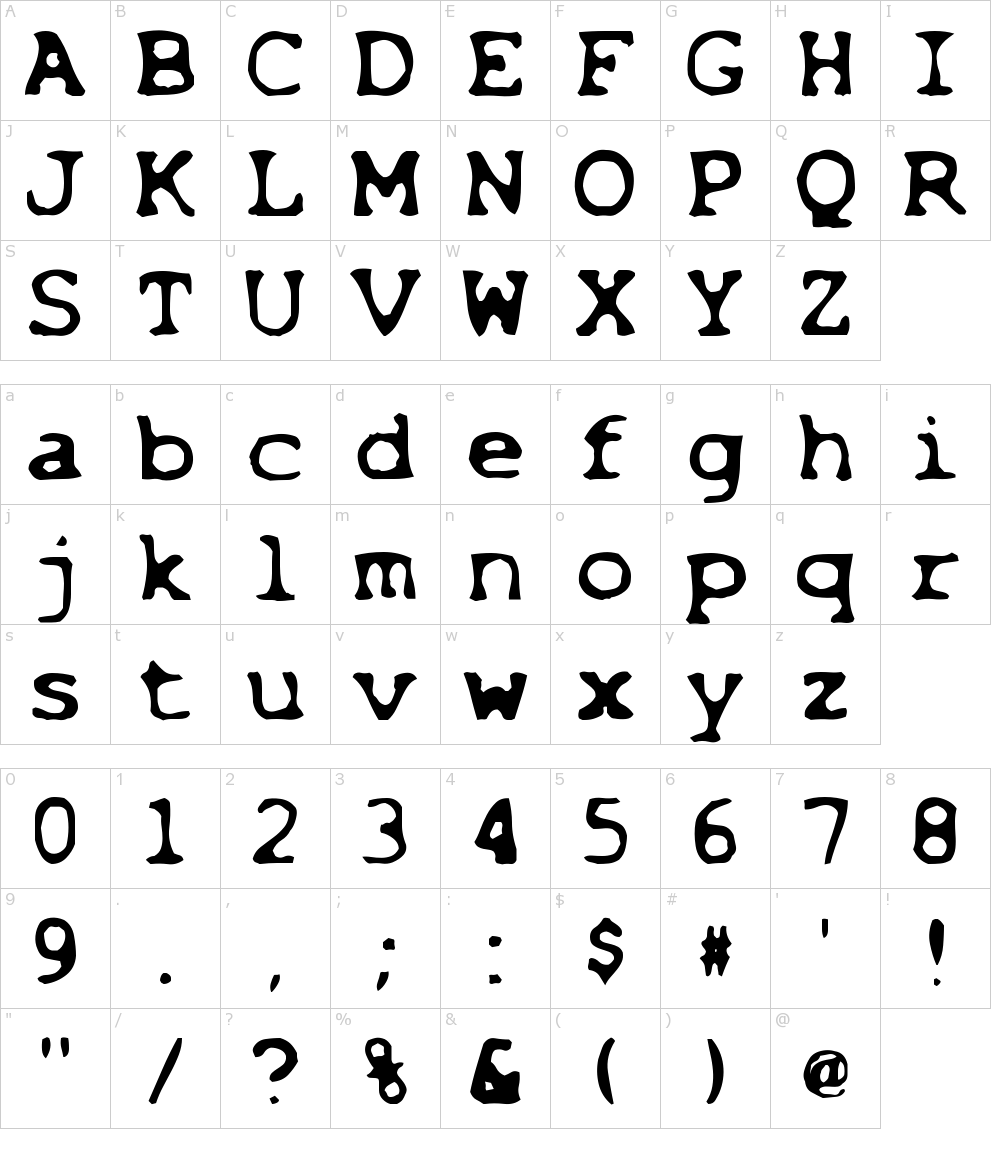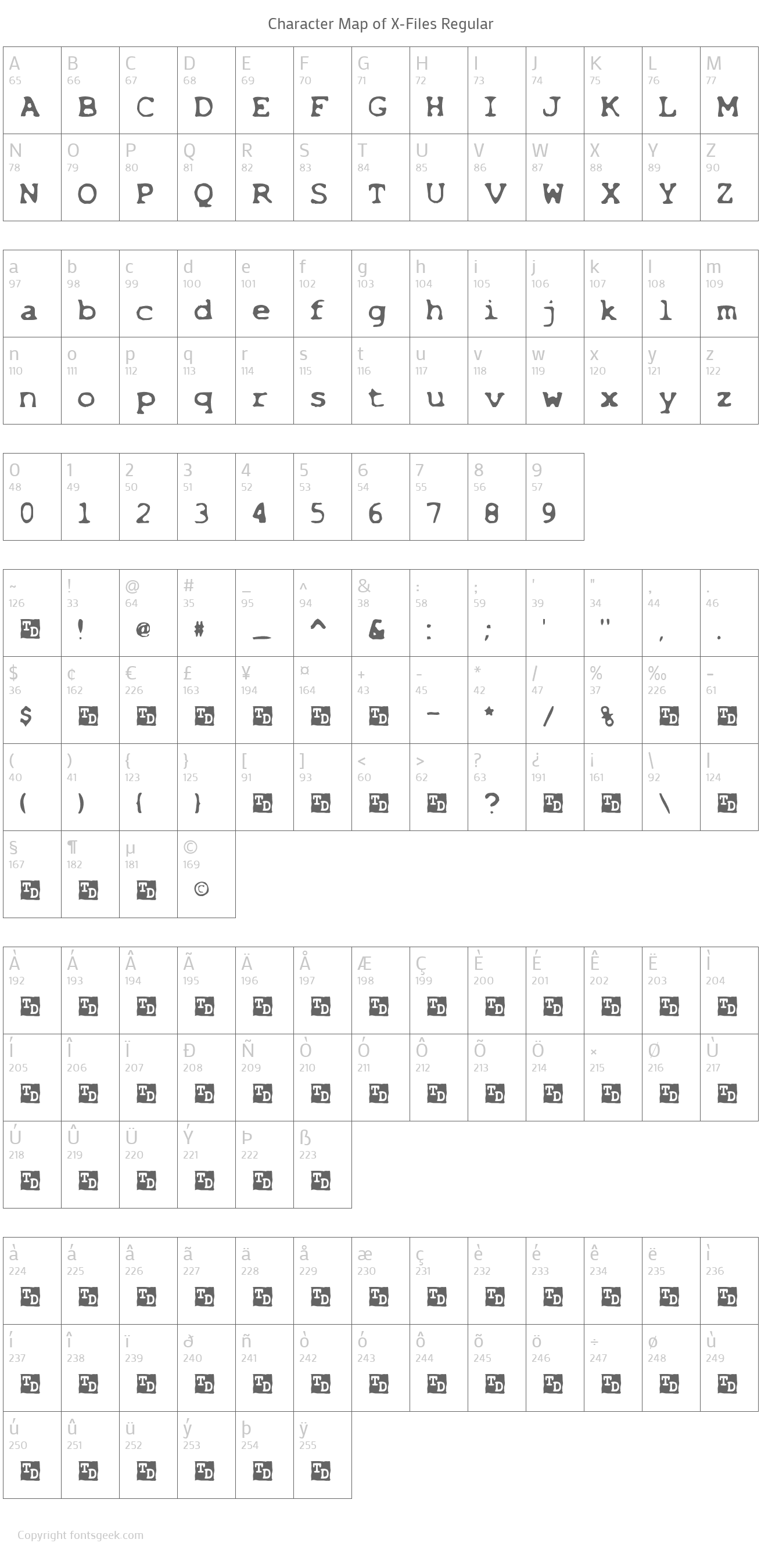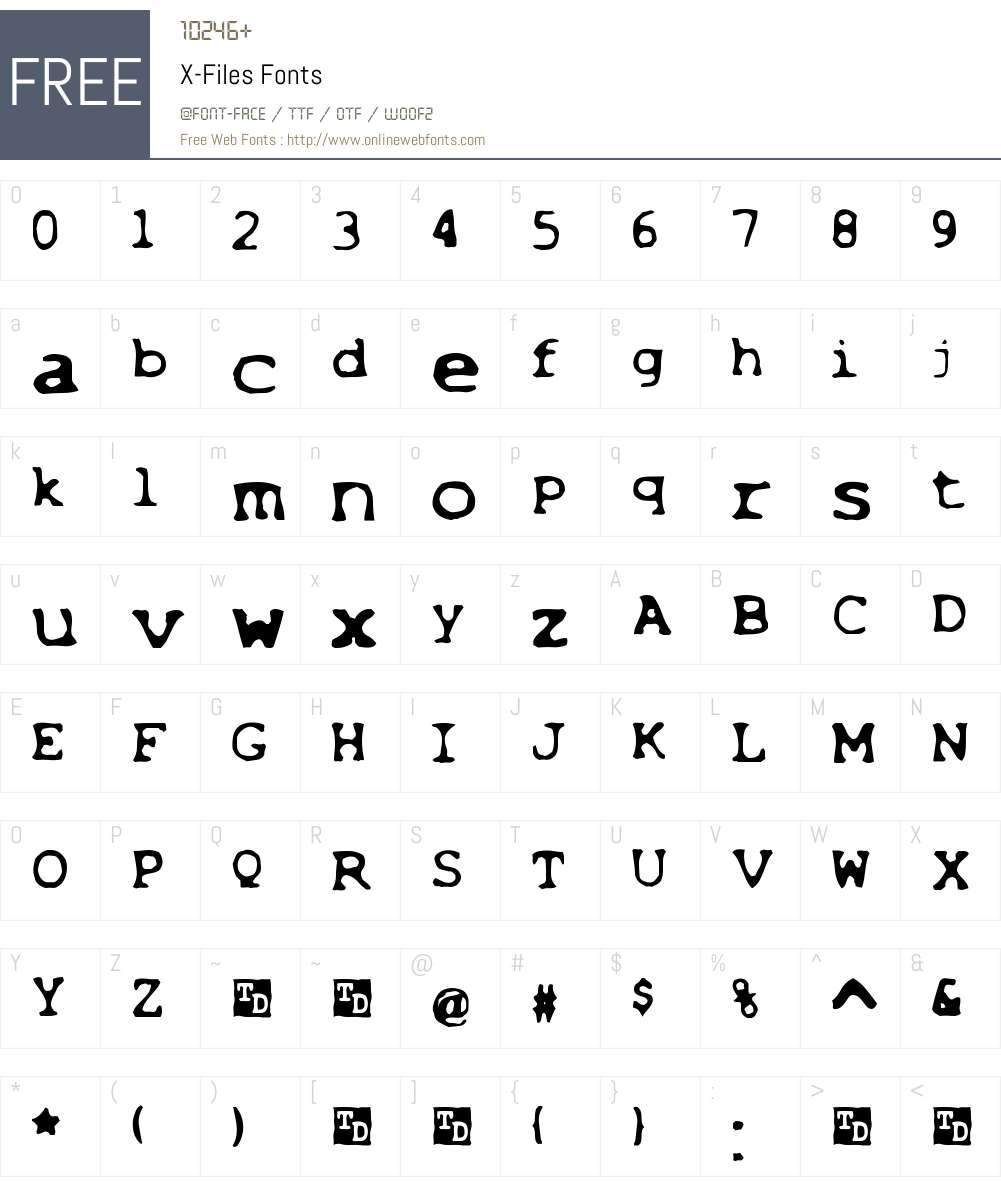
Fonts from films, latinic fonts. The fonts in use section features posts about fonts used in logos, films, tv shows, video games, books and more; This standard font was created and launched by spidera ysfonts.